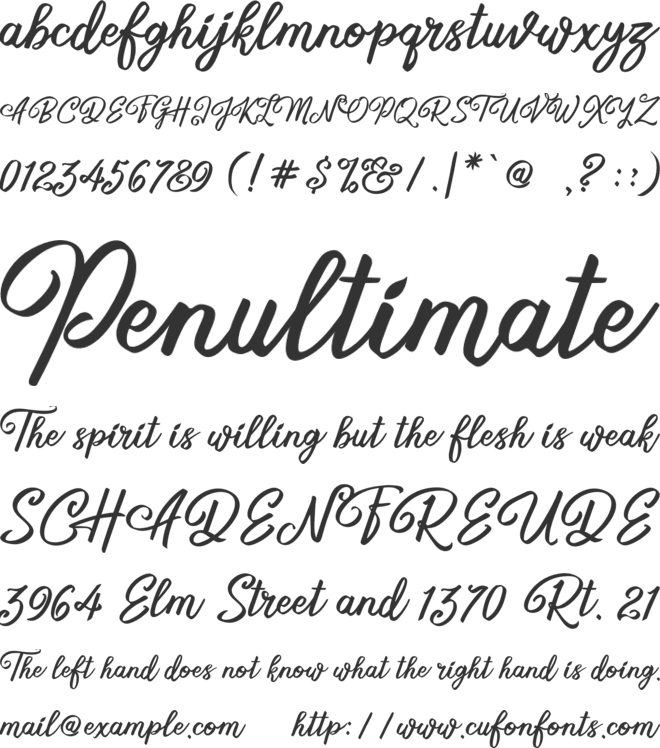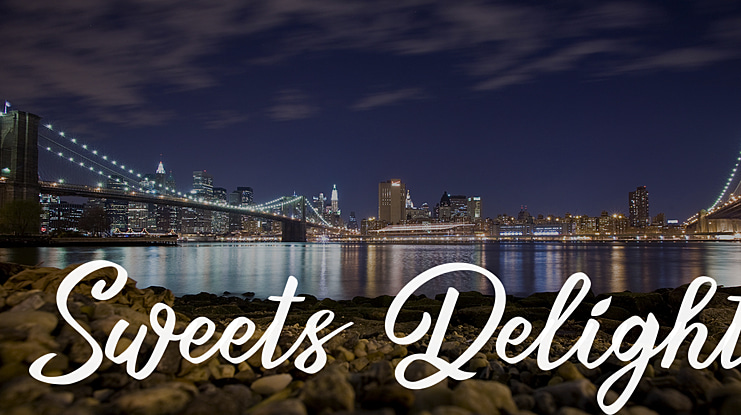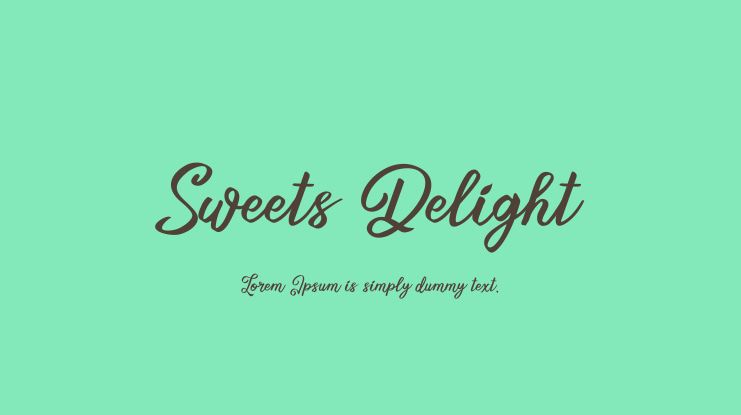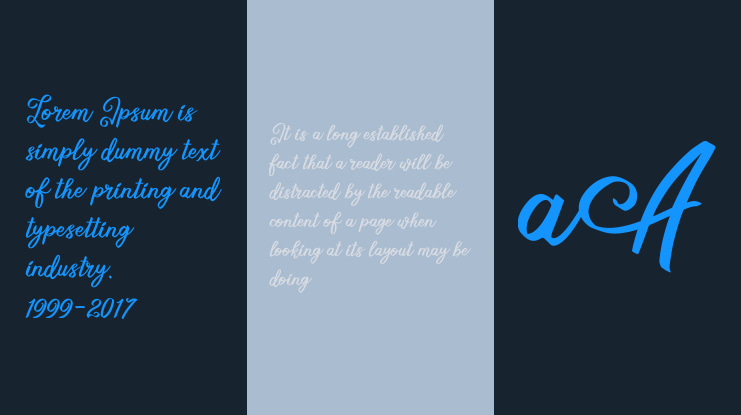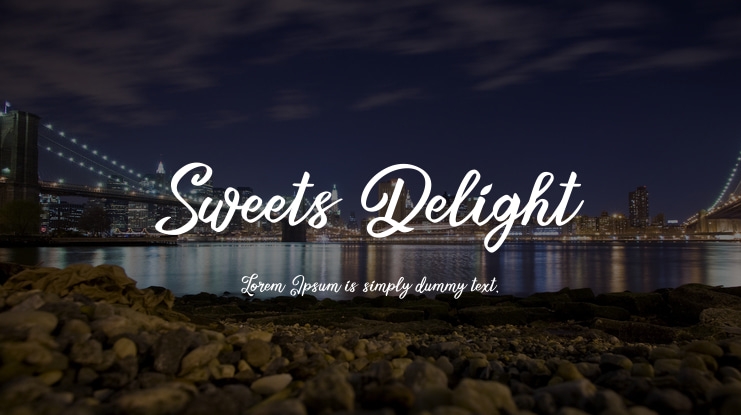
Sweets Delight Font
Indra Renov
With a smooth form and natural flow, "Sweet delight" gives its own uniqueness in every word arranged by the letters.
Give the impression of being happy, comfortable, happy, passionate, and full of love.
Suitable for headlines of all sizes, cake decoration, invitations, web, or all types of printed products and crafts, logos & branding, social media posts, advertisements & product designs, etc.